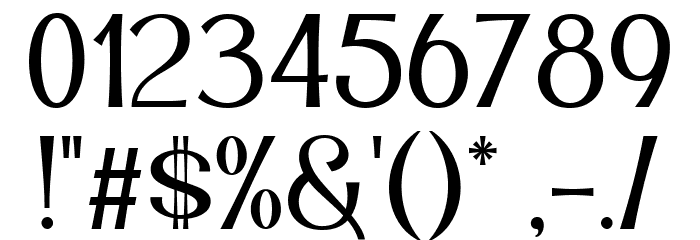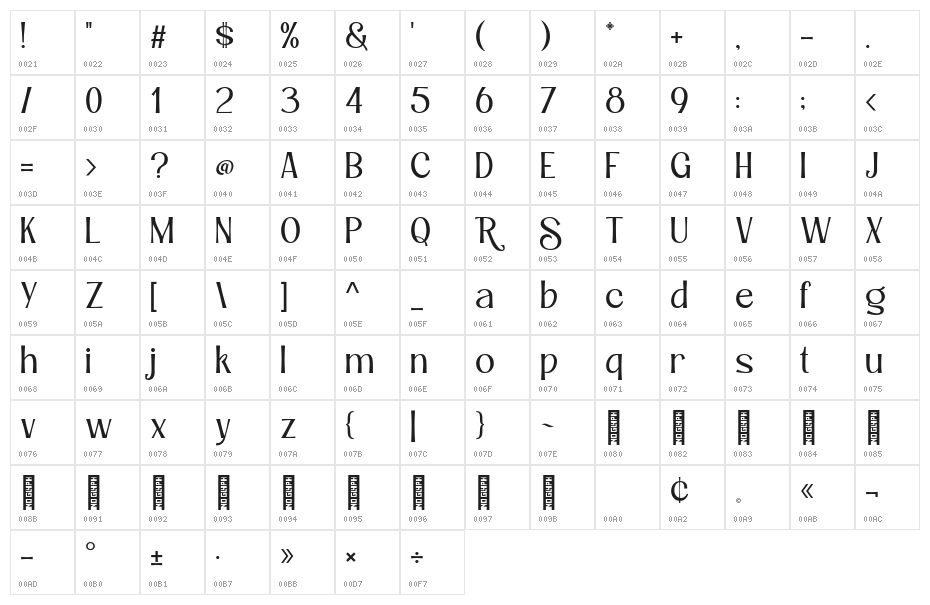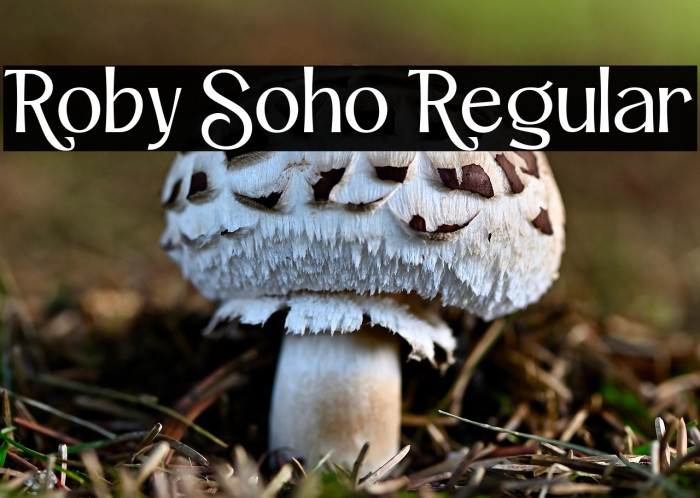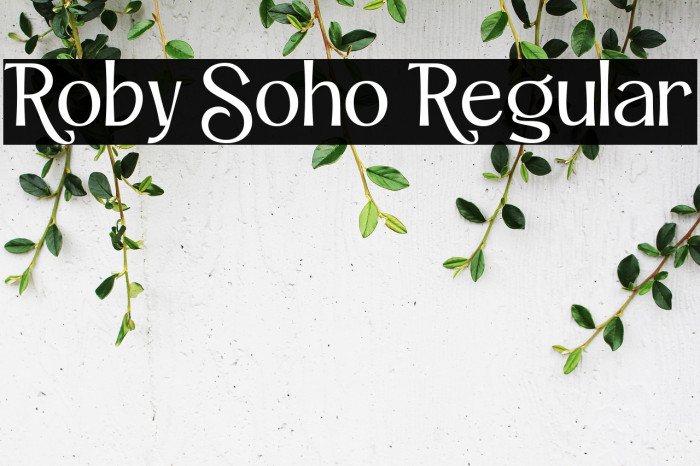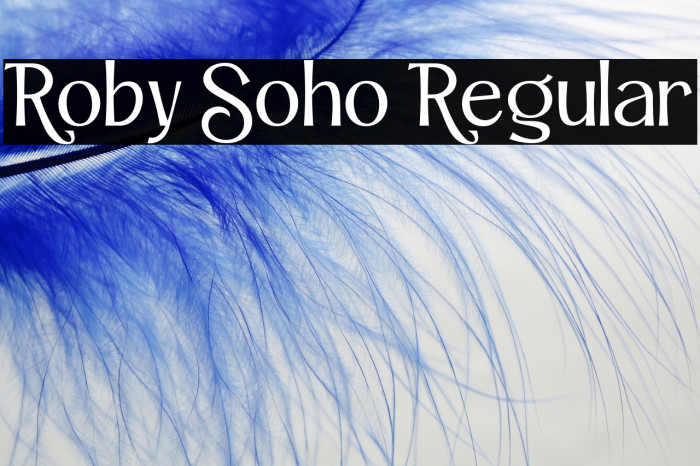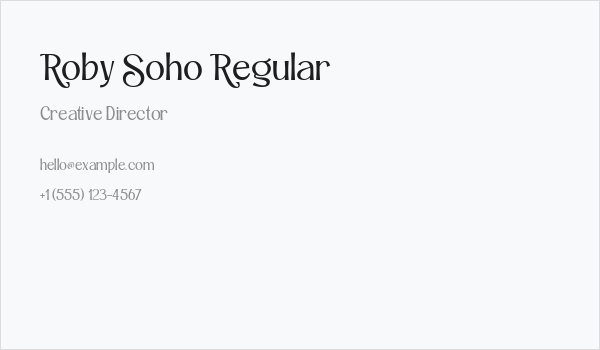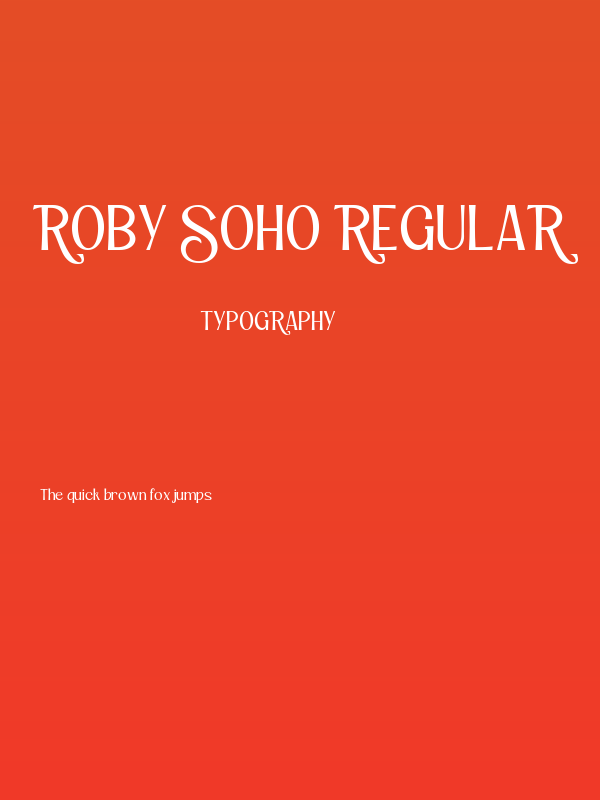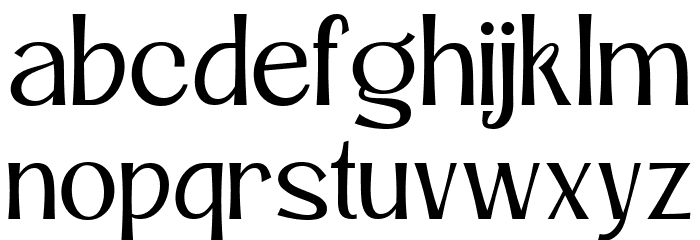
Roby Soho Regular Font
Roby Soho Regular Description
This font features a unique blend of modern and vintage styles, characterized by its distinctively curved and slightly exaggerated serifs. The uppercase letters exhibit a playful yet elegant flair, with some characters like 'S' and 'R' showcasing artistic loops and swirls. The lowercase letters maintain a more traditional serif appearance but with subtle quirks that add personality. The numerals are bold and clear, ensuring readability, while the special characters are crafted with the same attention to detail, making them stand out. Overall, this font combines readability with a touch of whimsy, making it suitable for creative and artistic projects.
Overall StyleModern, Vintage
Use CaseHeadlines, Logos, Editorial design
Proposed ProjectsIdeal for branding, packaging, editorial design, and creative advertising.